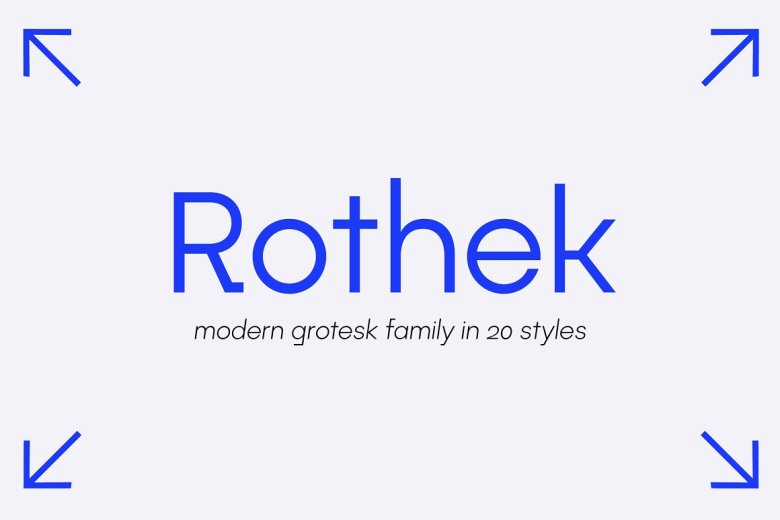
Rothek Font
Othek Font has the characteristics of a geometric sans-serif typeface which is strongly marked and unique. The family comes with 20 weights — 10 uprights and 10 italics — so it’s perfect for any designer who needs to use a versatile font. Rothek retains its distinctive traits and lovable character, even at small weights do not disappoint. Rothek is perfectly suited for app and web design because of its excellent definition at small weights. The OpenType features found in Rothek are what really set it apart from other modern type families Rothek is not only able to handle fractions, but it also does both superscript and subscript. It is fully equipped with somewhat more linguistically descriptive understanding function for punctuating marks- for example, you will be delighted at how it adjusts the height of your parentheses, hyphens (and more) according to what text surrounds them. But that is not all: Rothek includes different kinds of figure marks – including default numerals, old style figures, tabular numerals and tabular old style figures.
Rothek Sans Serif Font